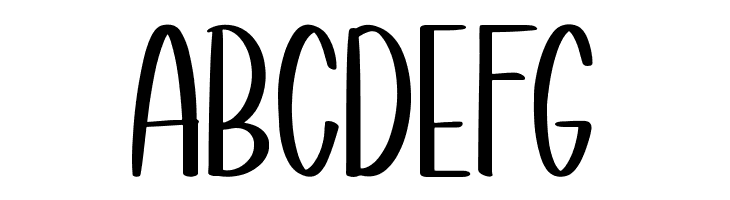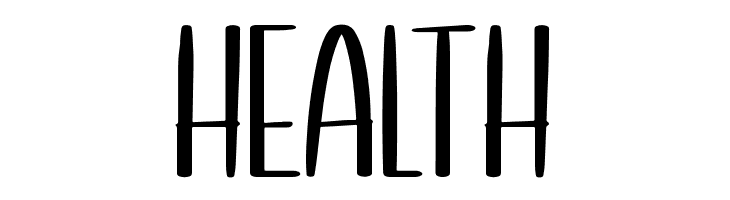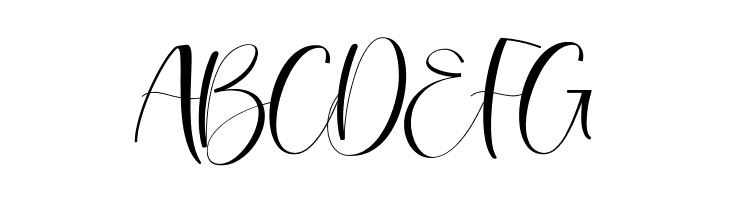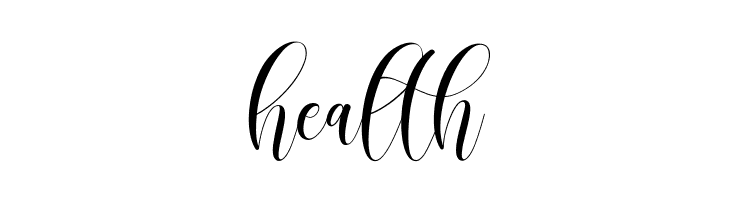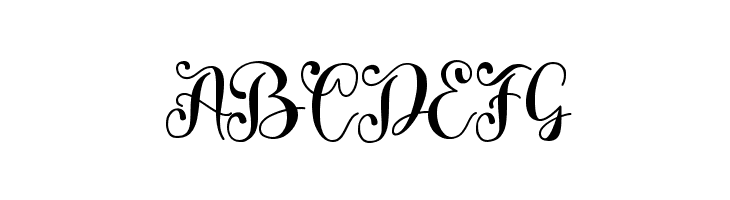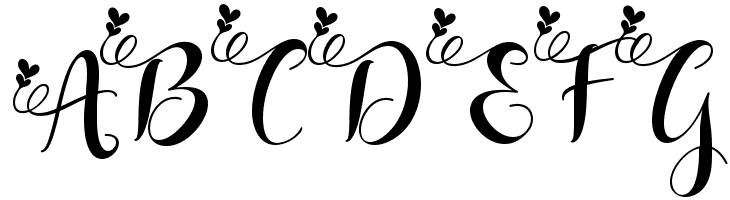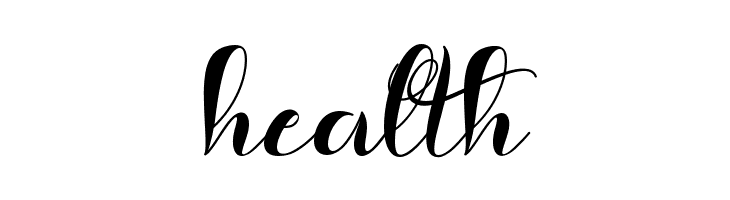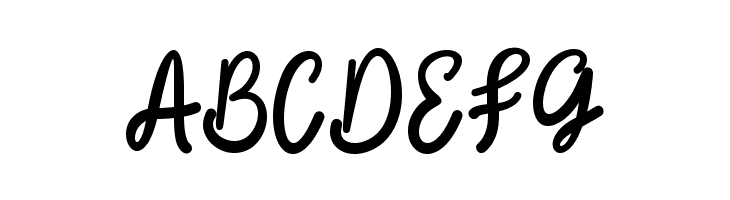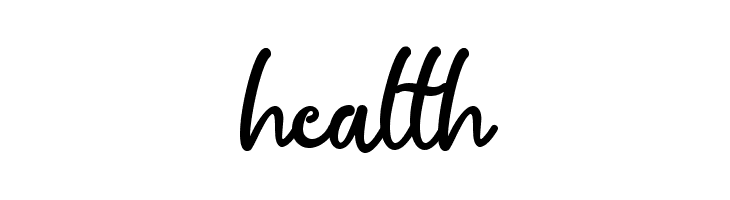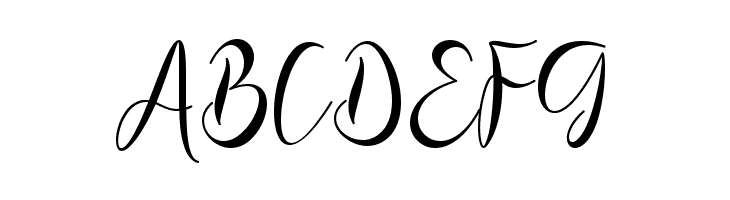
• Bestiality
An elegant and flowing script font with artistic loops and swirls.
• betharia
A sophisticated script font with elegant loops and high contrast strokes.
• Betharia - Personal Use
An elegant and flowing script font with delicate, elongated letterforms.
• Bethlove - Personal Use
An elegant script font with floral embellishments and flowing cursive style.
• Better Unicorn
A playful, hand-drawn font with tall, narrow letters and a modern, whimsical style.
• betteryou - Personal Use
A decorative script font with elegant swirls and playful loops.
• Bhaillia - Personal Use
An elegant and flowing script font with ornate uppercase and smooth lowercase letters.
• Bialletta - Personal Use
A playful and flowing script font with a handwritten style.
• Biblicals
A pictorial font using biblical scene illustrations as glyphs.
• Big Easy
A bold, dynamic font with expressive strokes and a playful, artistic style.